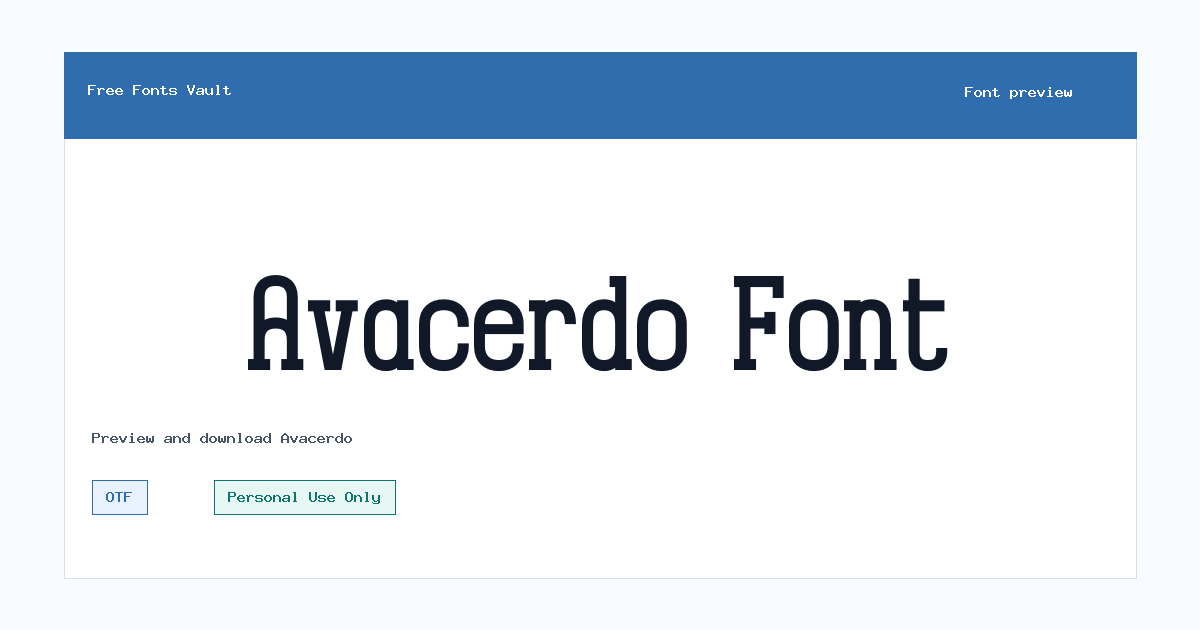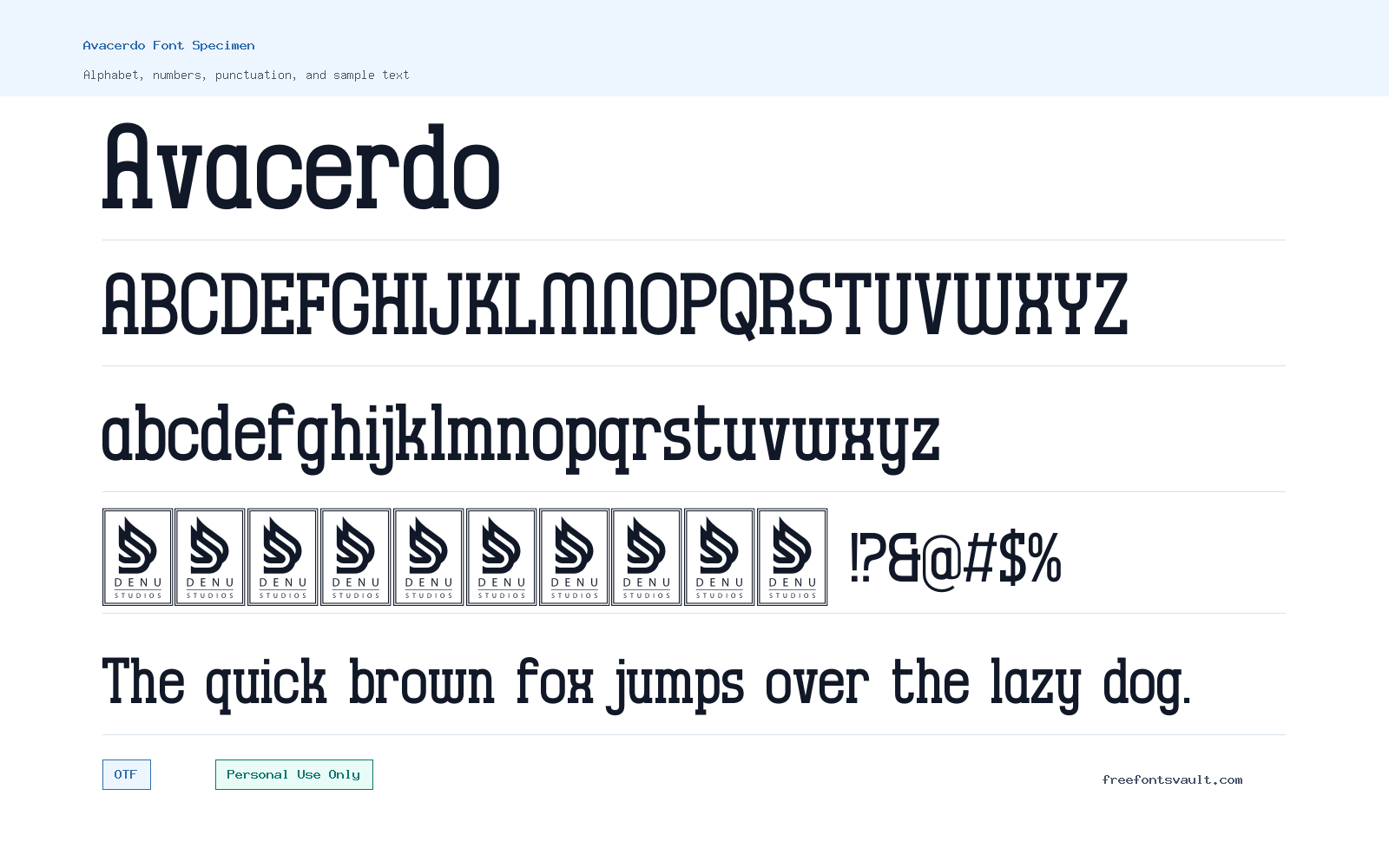
Avacerdo
- Designer Dede Nugraha
Avacerdo is a slab serif demo font with a sturdy, editorial feel. Its regular style is best treated as a display typeface for short text, where the letter shapes can stand out clearly without needing long paragraphs to carry the design.
Avacerdo works well when you want a serif font that feels firm rather than delicate. The slab serif structure gives the letters a grounded look, making the font suitable for headlines, poster text, cover mockups, badge-style layouts, and logo experiments. Because the available file is a regular OTF style, it is a good idea to test it at the exact size you plan to use. Display fonts can change character quickly between small captions, medium subheads, and large hero text.
For design work, start with short words or compact phrases in the preview box. Try it in uppercase, title case, and sentence case to see how the rhythm changes. Avacerdo may be useful for vintage-inspired graphics, strong editorial titles, packaging mockups, social media headers, and web hero concepts, but it should not be assumed to work for body copy until you test readability at smaller sizes. If you are building a logo, test spacing carefully, especially around wider letters and tighter letter pairs. For posters and web mockups, give the type enough breathing room so the slab details do not feel crowded.
Pairing Avacerdo is mostly about balance. For a clean layout, match it with a neutral sans serif for body text and interface labels. For a warmer editorial style, use a quiet old-style serif in supporting text, but avoid pairing it with another heavy decorative serif that competes for attention. If Avacerdo is used in a logo or large title, keep secondary text simpler and smaller. This helps the display face remain the main visual element without making the layout feel busy.
- Slab serif display style with a firm, grounded look for short text and headlines
- Useful for logo drafts, posters, cover concepts, social graphics, and web hero mockups
- Logo concepts and brand direction tests
- Posters, flyers, and bold title layouts
- Editorial headlines and cover mockups
- Packaging studies and label-style design
- Website hero text and social media graphics
What kind of font is Avacerdo?
Avacerdo is presented as a slab serif font. It is best approached as a display face for headlines, logos, posters, and short text settings.
Is Avacerdo good for body text?
It is safer to use Avacerdo for short display text. Test it carefully before using it in longer paragraphs, because slab serif display styles can become harder to read at small sizes.